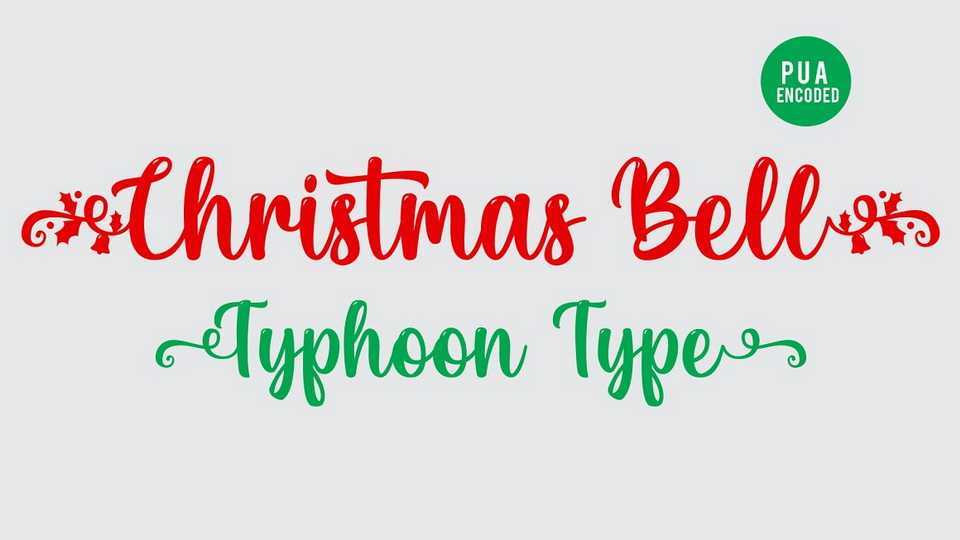
Download Christmas Bell font, a decorative handwritten typeface inspired by winter holidays. Christmas Bell perfect for logos, name tag, advertising, product packaging, clothing, social media and greeting cards.
Designer: TyphoonType